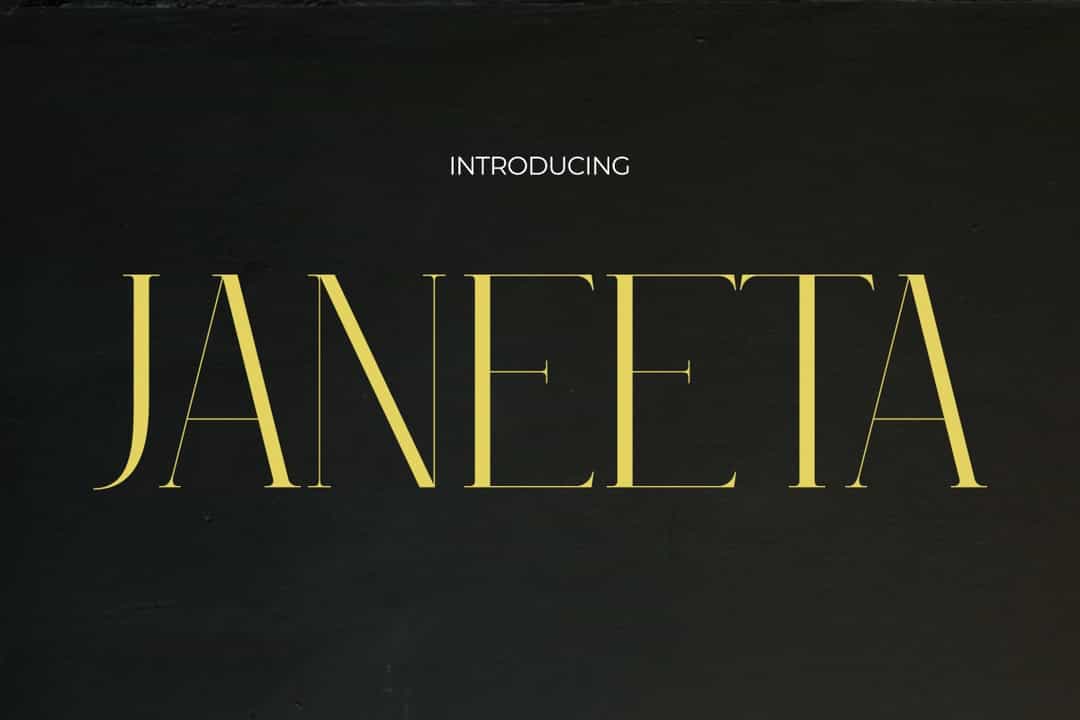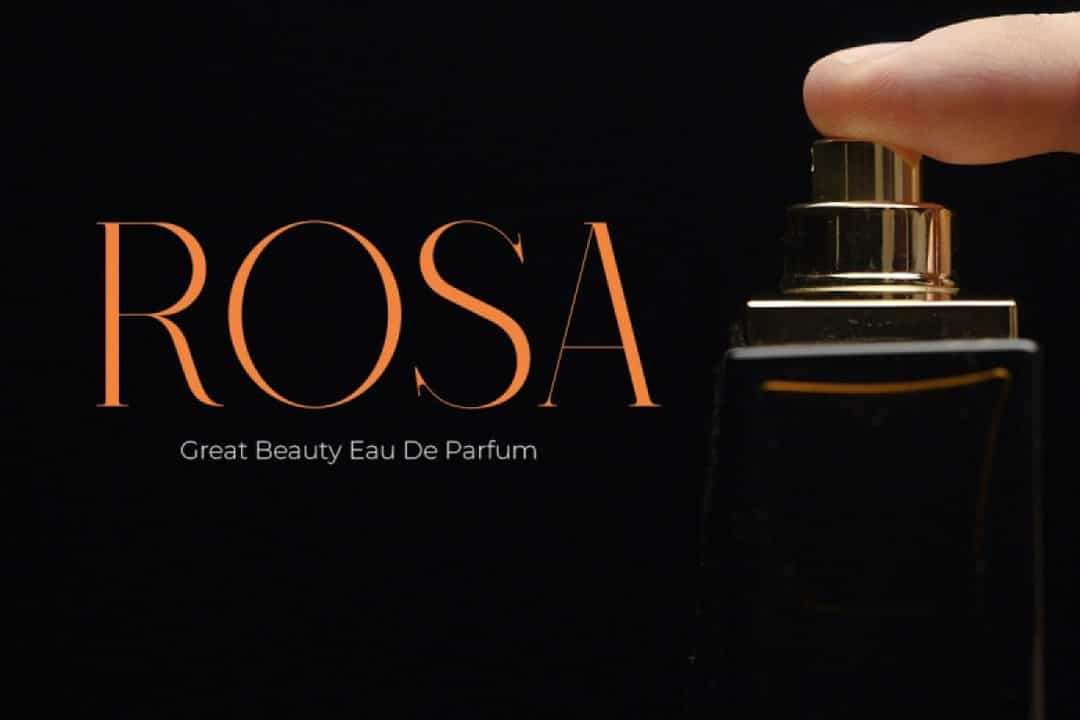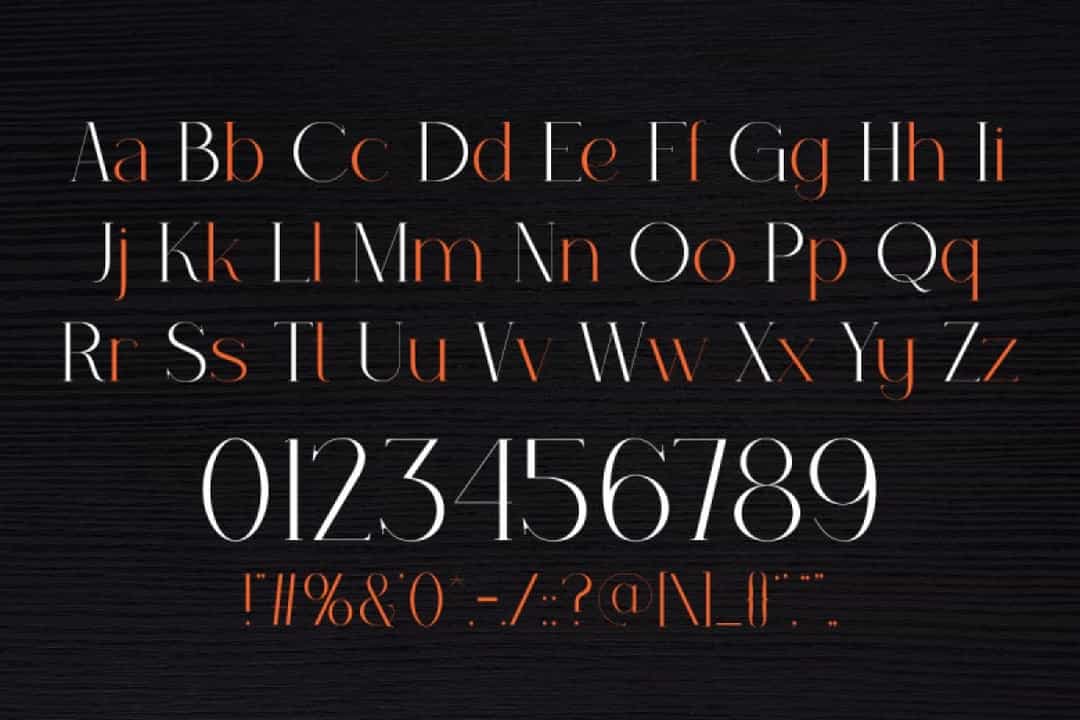
Improve your graphic designs using Janeeta, our unique font that effortlessly blends retro style with refined refinement. Every character in Janeeta has been carefully designed to reflect timeless elegance bringing romance into every stroke – making this font perfect for projects looking to create romantic ambience or atmosphere. Beyond basic font design limitations it tells a remarkable visual story, making for an outstanding font experience!